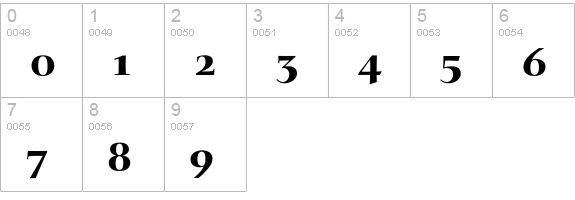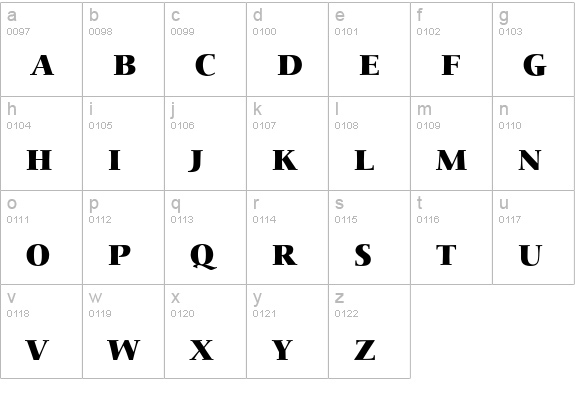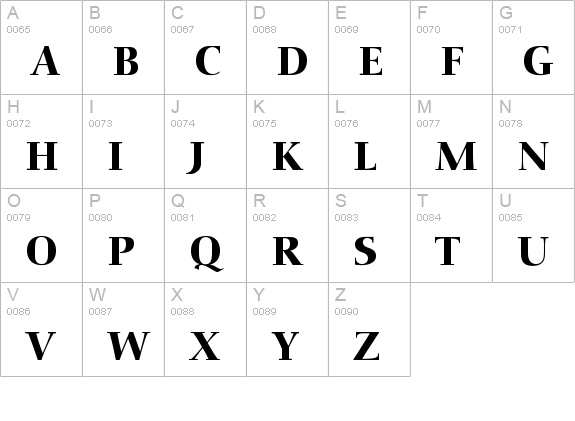
Nofret Expert BQ Medium is a balanced, medium-weight variant in the Nofret typeface family \xE2\x80\x94 well suited to sub-headlines, navigation, and balanced editorial work.
Nofret Expert BQ Medium font is a versatile and elegant typeface that exudes sophistication and style. With its sleek and modern design, this font is perfect for a wide range of design projects, from branding to editorial layouts. The clean lines and balanced proportions of Nofret Expert BQ Medium make it easy to read while still maintaining a sense of flair and creativity. What's even better is that Nofret Expert BQ Medium font is available for free download at FontsMarket.com. This means that you can easily access this stunning font and use it in your projects without any cost. Whether you're a professional designer or just looking to add a touch of class to your personal creations, Nofret Expert BQ Medium font is the perfect choice. Download it today and elevate your designs to the next level with this exceptional typeface.